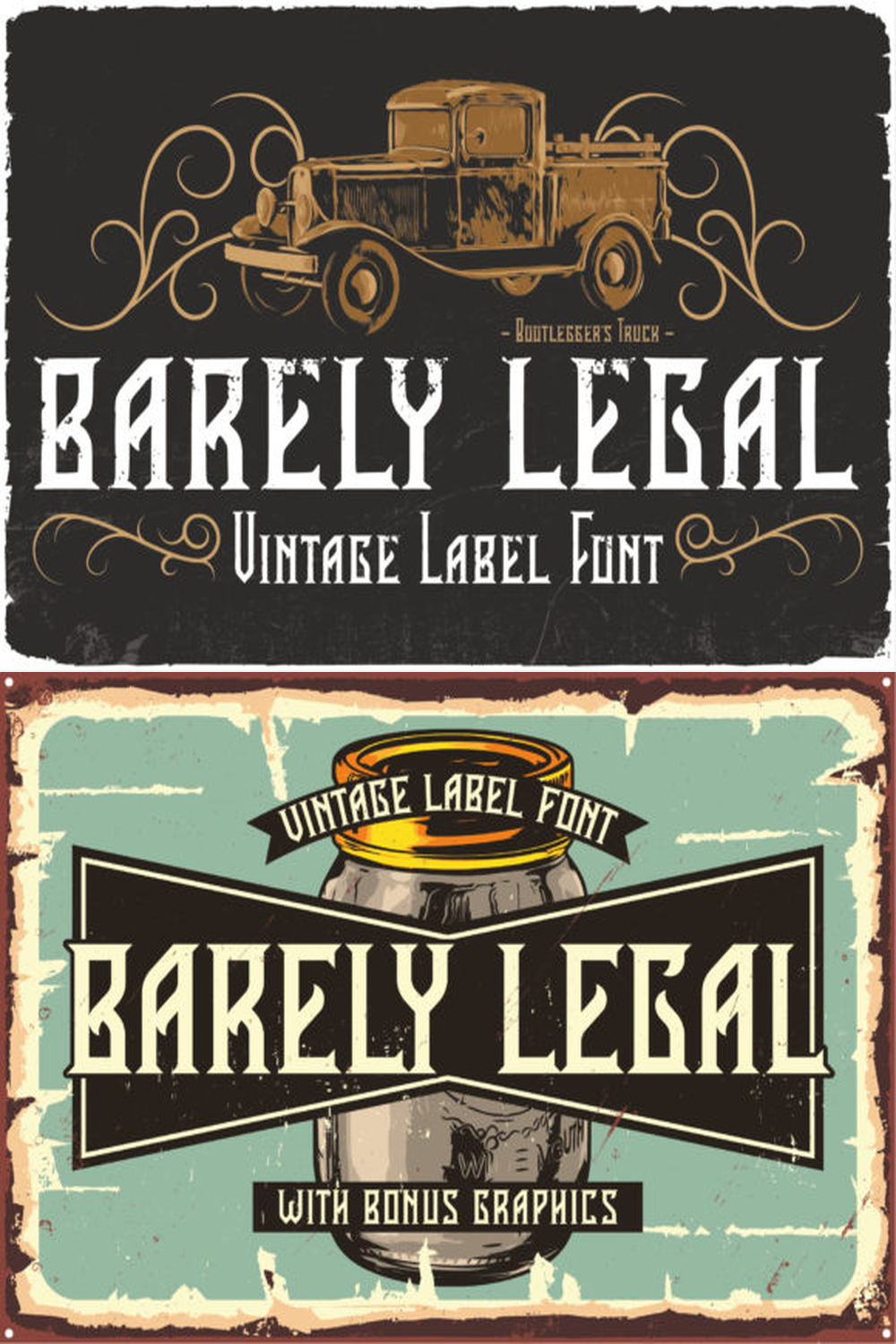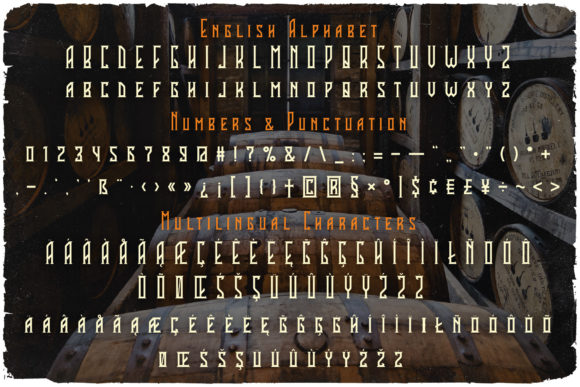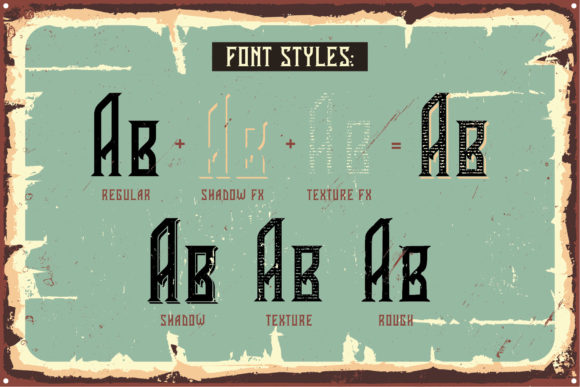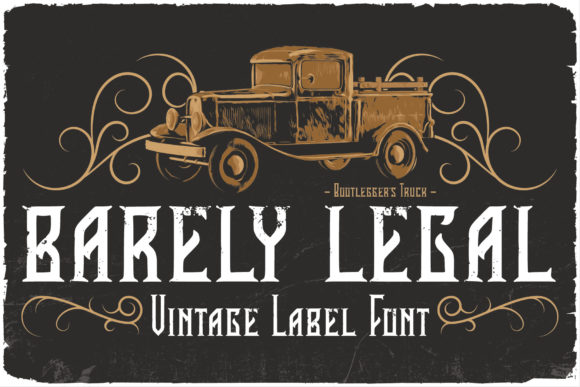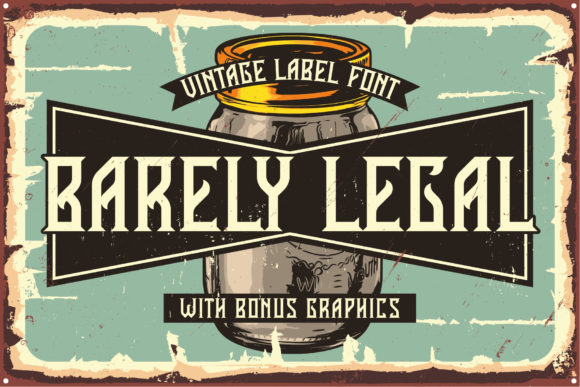
Barely Legal Font: A Bold Vintage Display Font for Creative Poster Designs
About the Barely Legal Font
Get ready to be inspired by Barely Legal Font, a fresh and dynamic typeface for modern creators. Barely Legal is a bold, vintage styled and uniquely designed display font. It will look stunning on any drinks menu, poster, flyer or print.
Barely Legal Font Usage Examples